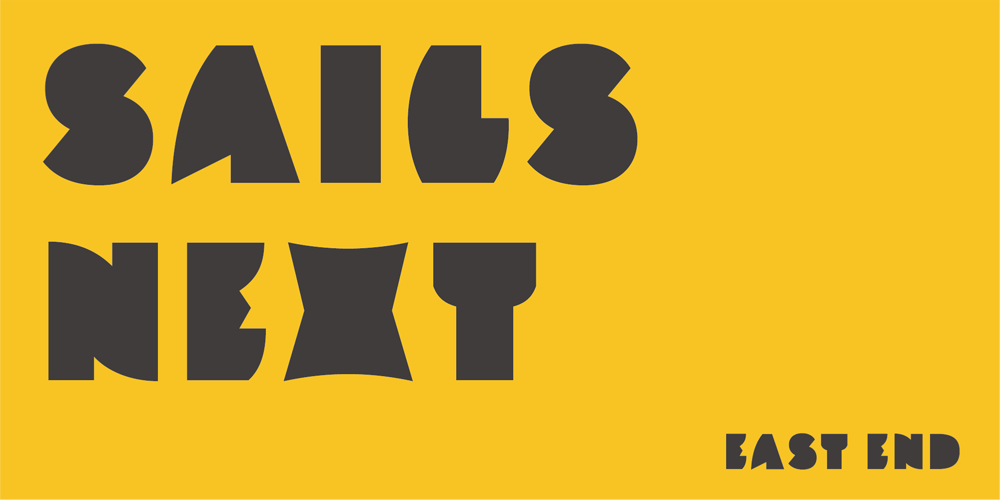
Sails Next Font Family was designed by Shinpei Ino and published by East end. Sails Next contains 1 styles and family package options. This font was created from scratch in a simple, strong, and unique style. No other fonts were used as references. Its name was inspired by the shape of the first letter, A, that flashed into being. Sails next is perfect as a display font for posters, flyers, and magazine headings. The font family consists of the regular font only.